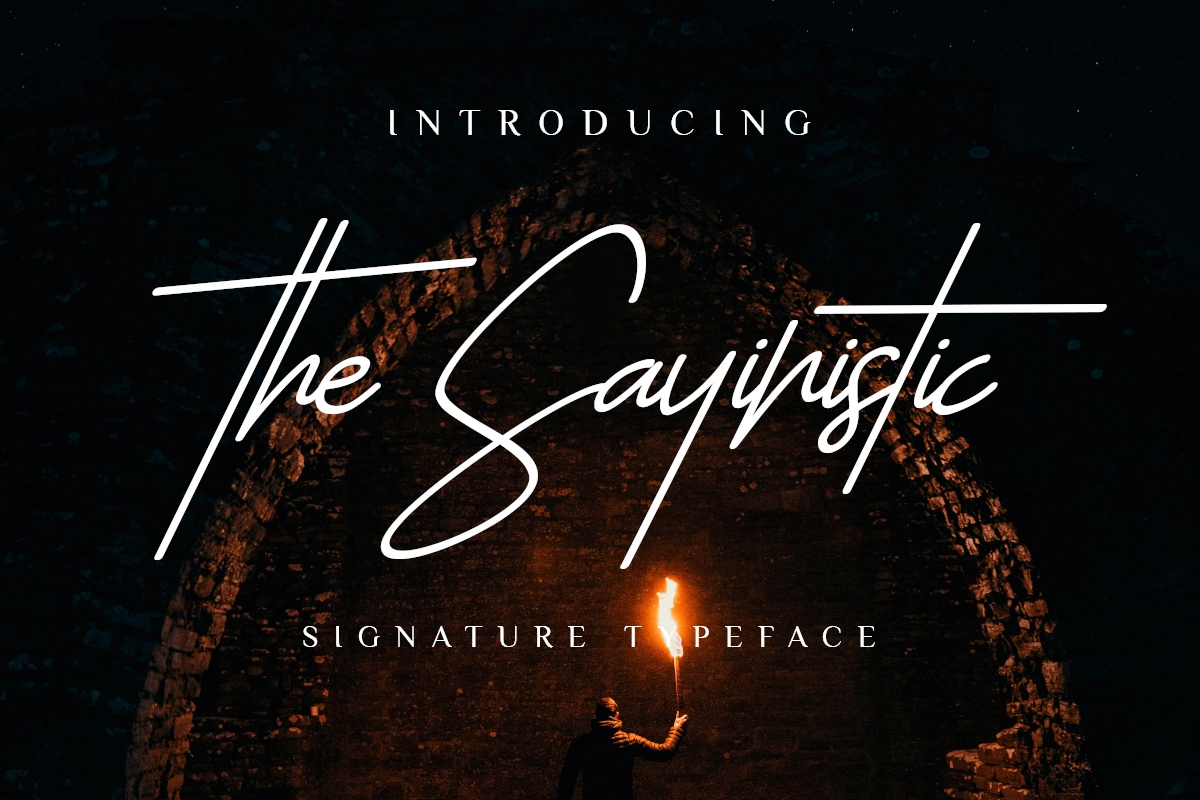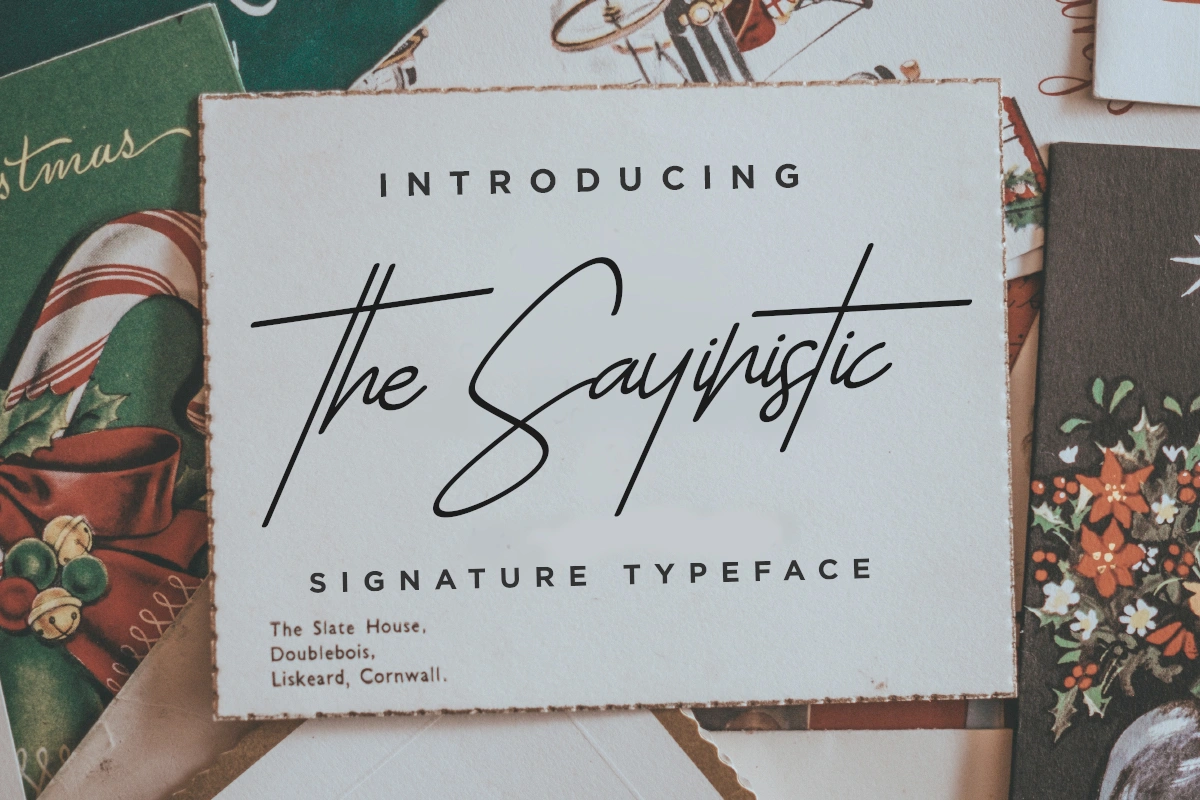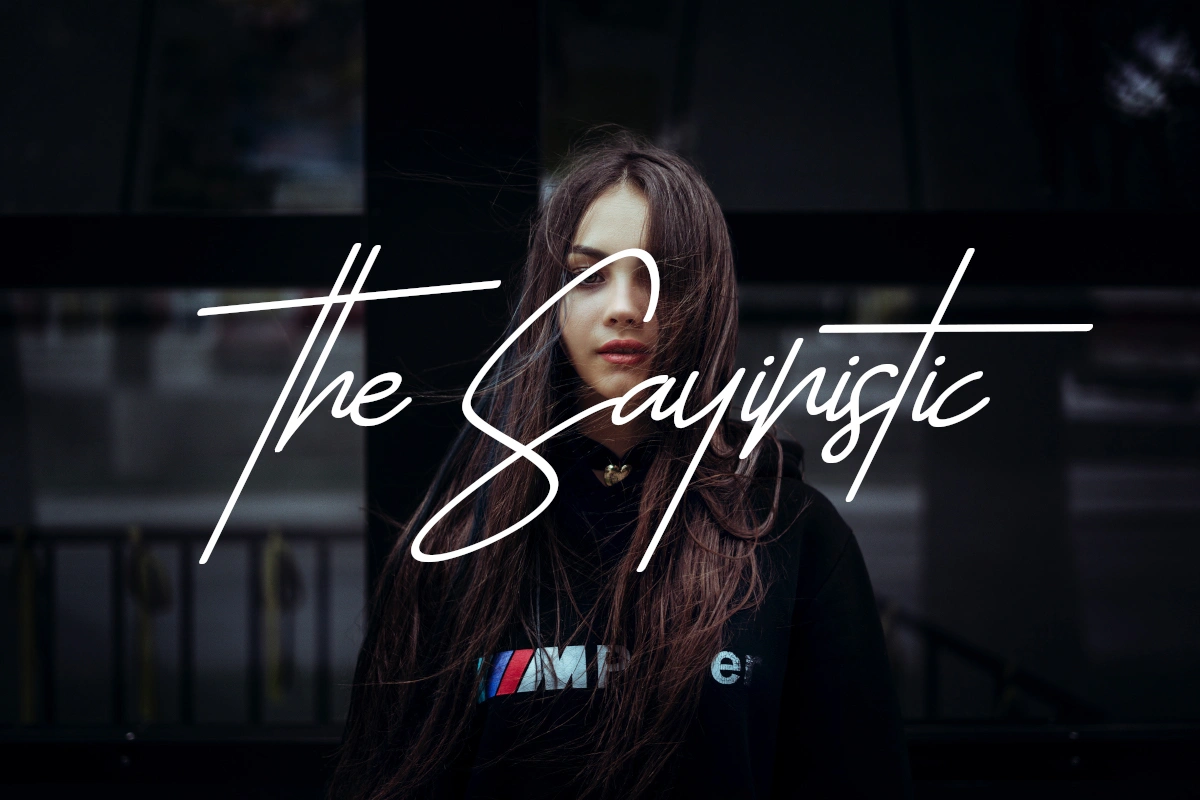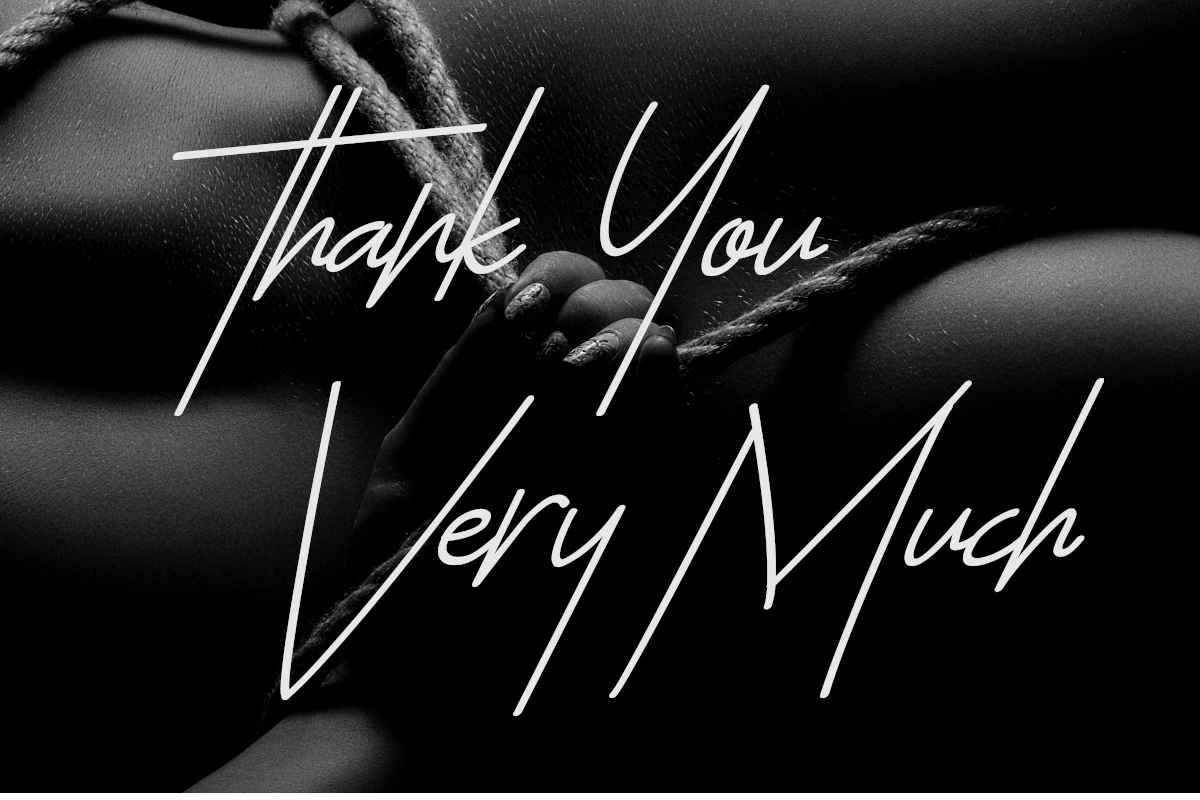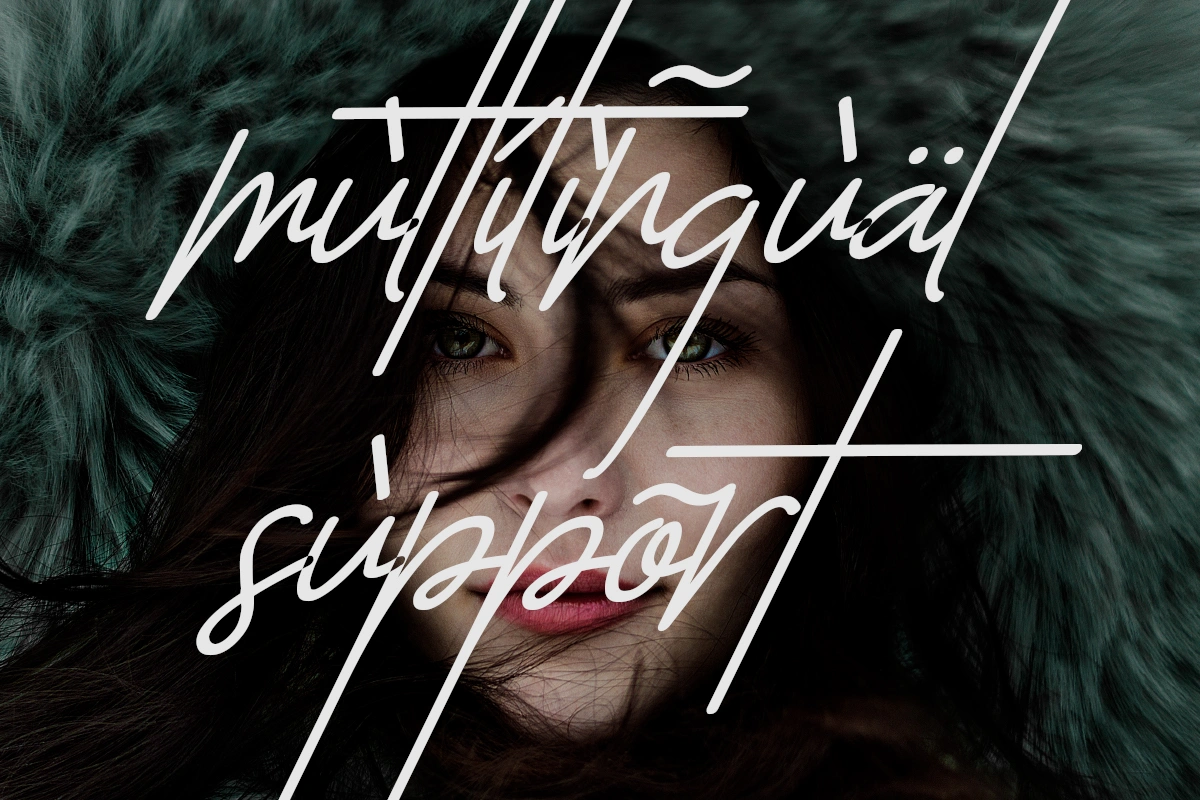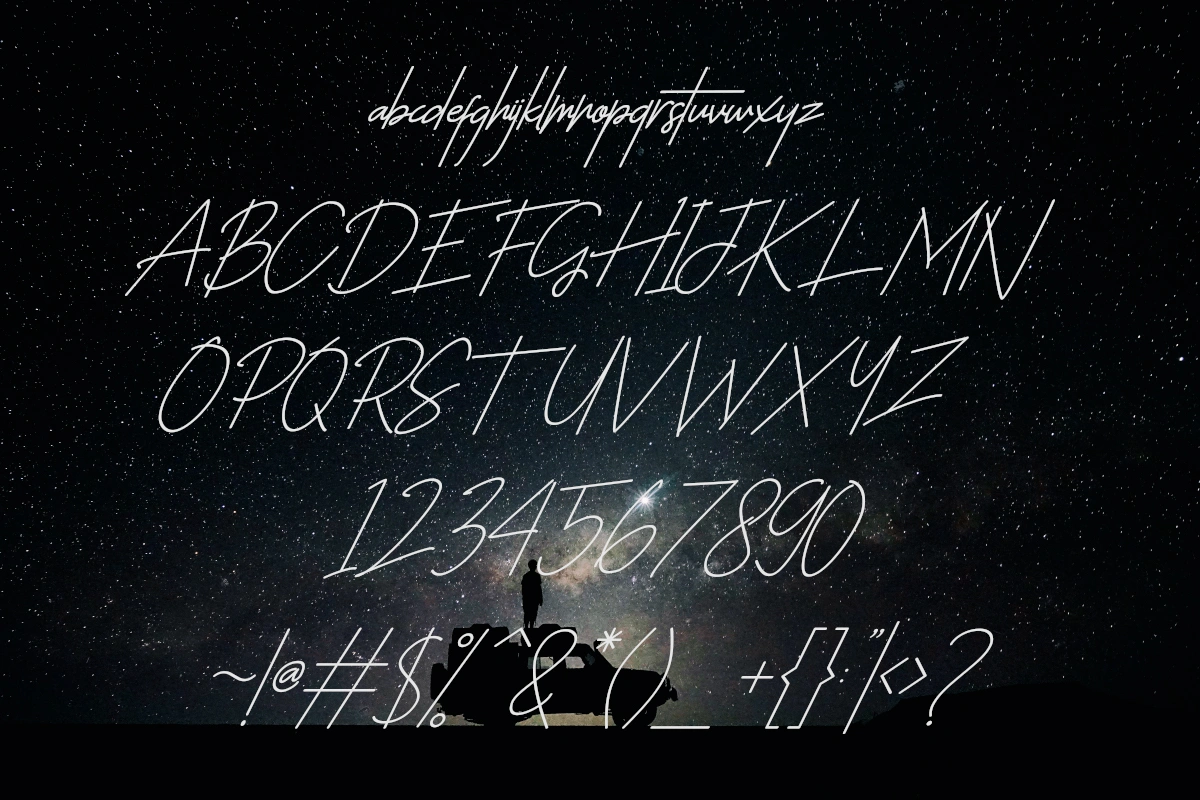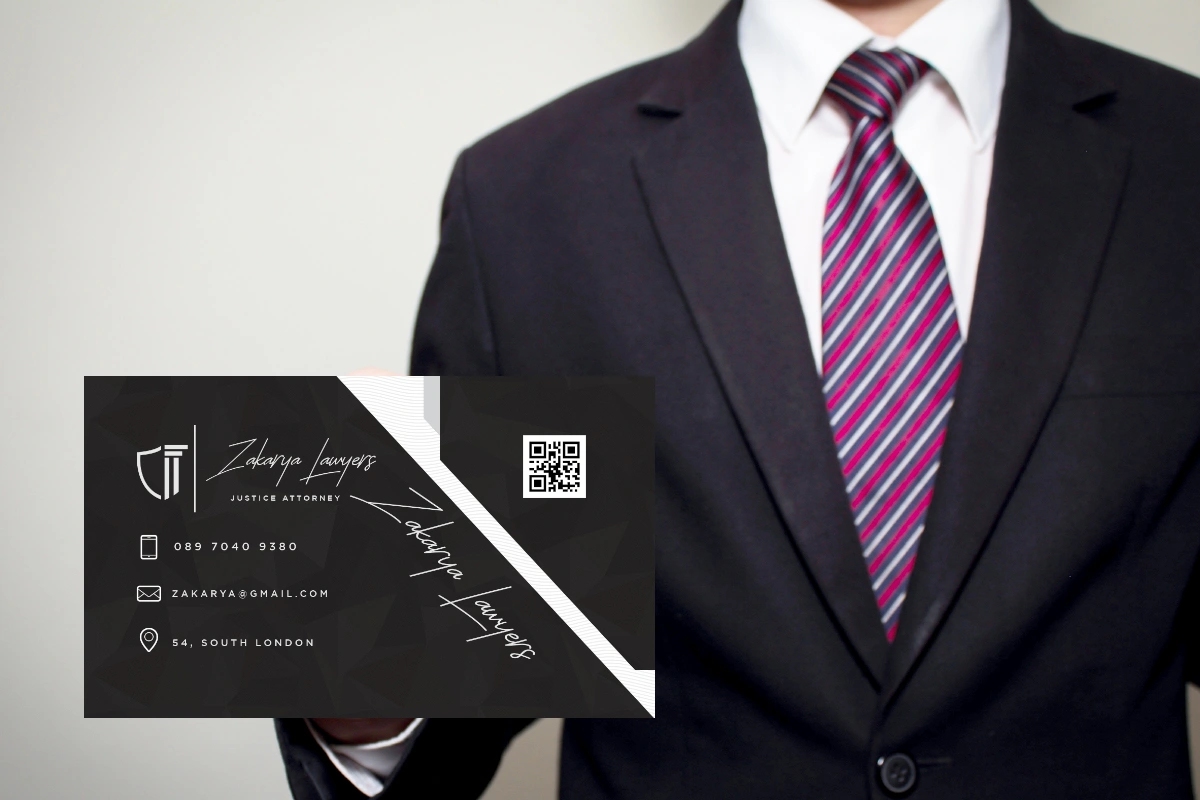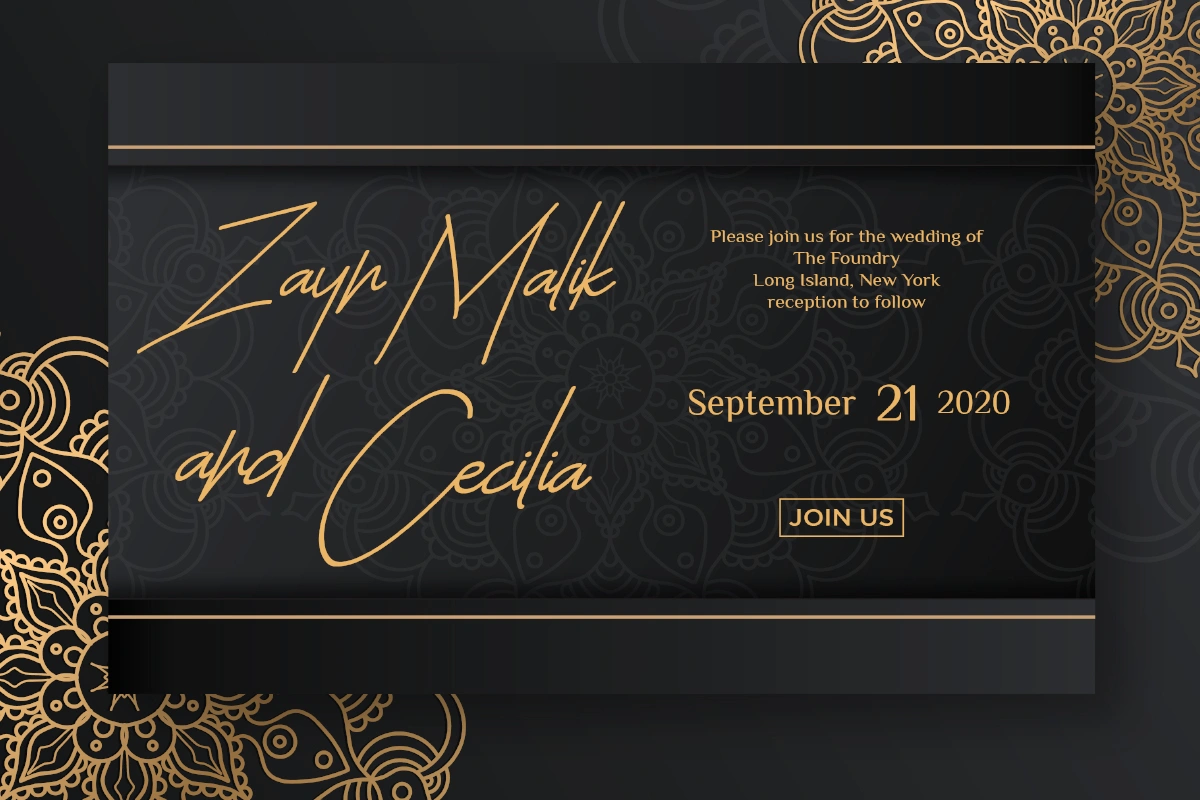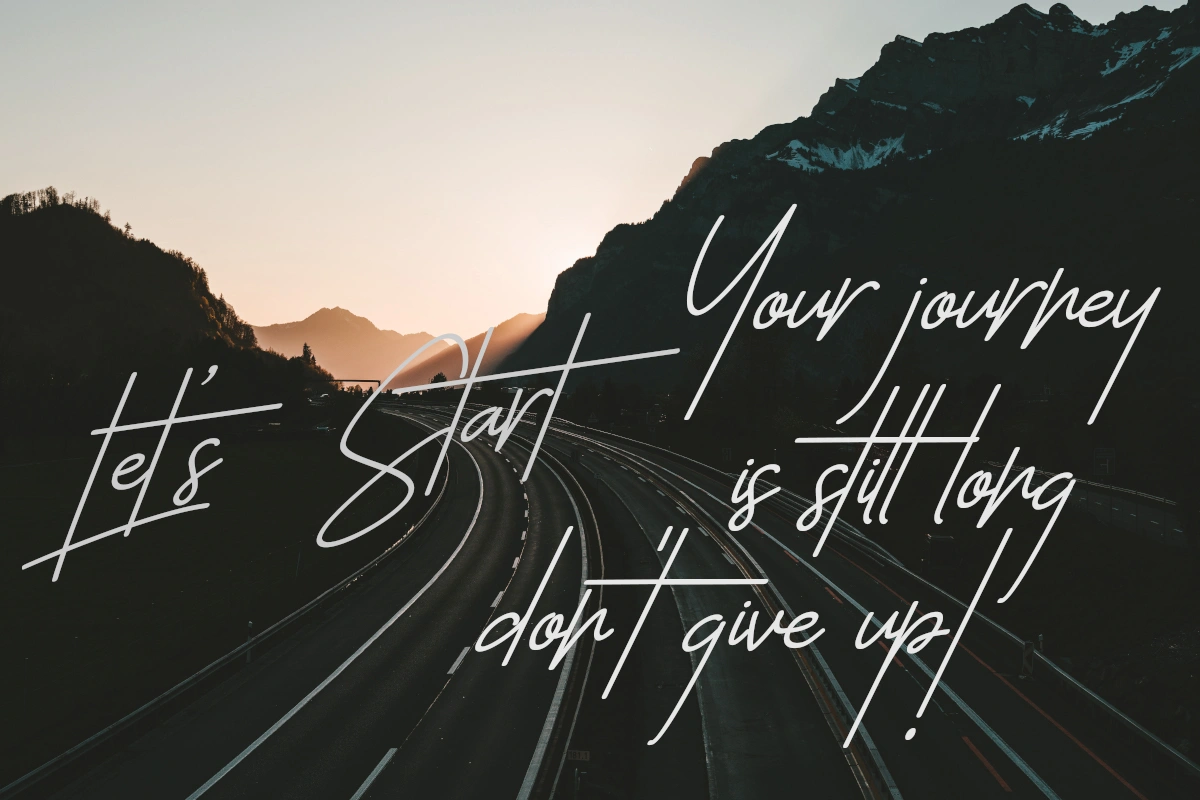
The Sayinistic – Display Font
The Sayinistic is the ideal font to give your designs a handcrafted and authentic feel. Get inspired by its unique charm!